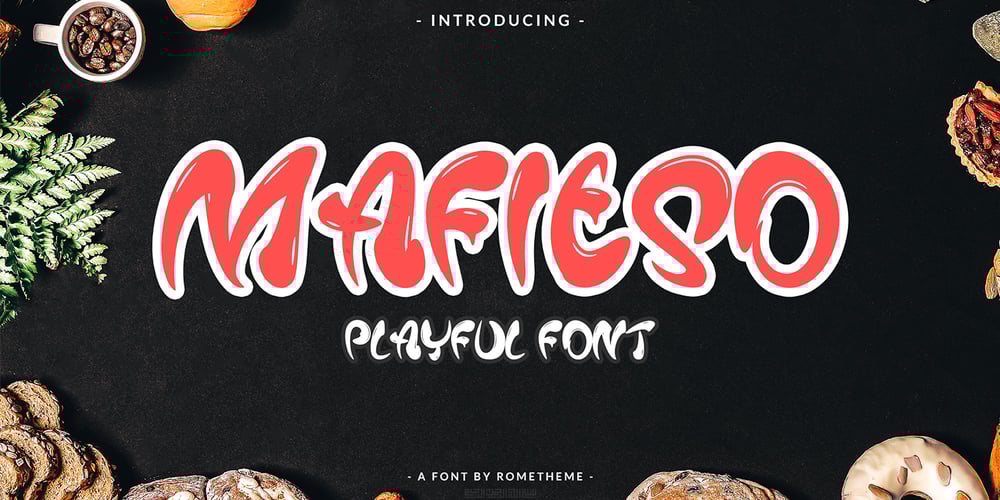
Mafieso Font Family was designed by Yahdi Kumala and published by Rometheme. Mafieso contains 1 styles and family package options. Mafieso is a fun, playful display font created for a large range of different designs. It features a sweet, cute style with bold letters, that will help you with getting your message across.